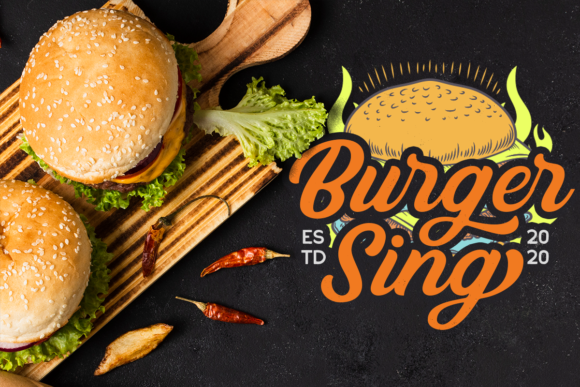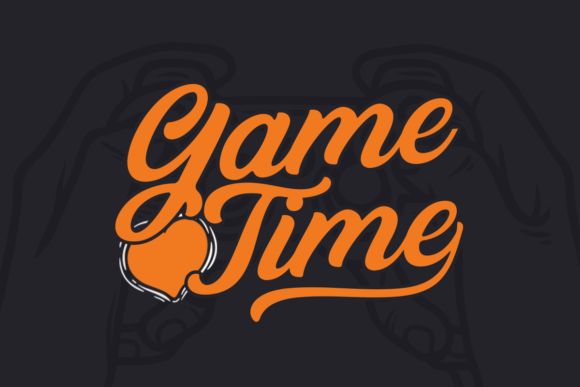
Bandira Font
db-ku.com - Script & Handwritten -- Bandira feels playfully nostalgic and delivers an incredible vintage aesthetic. Use this handwritten font to add that special retro touch to any design idea you can think of!